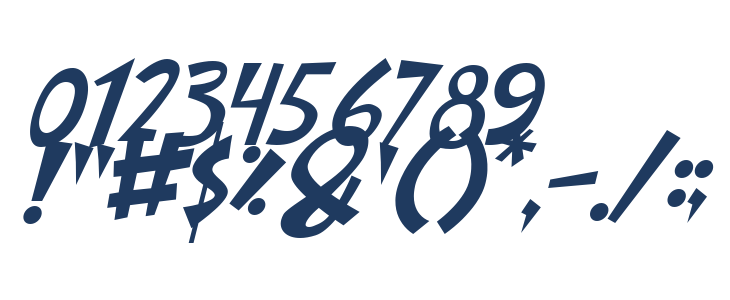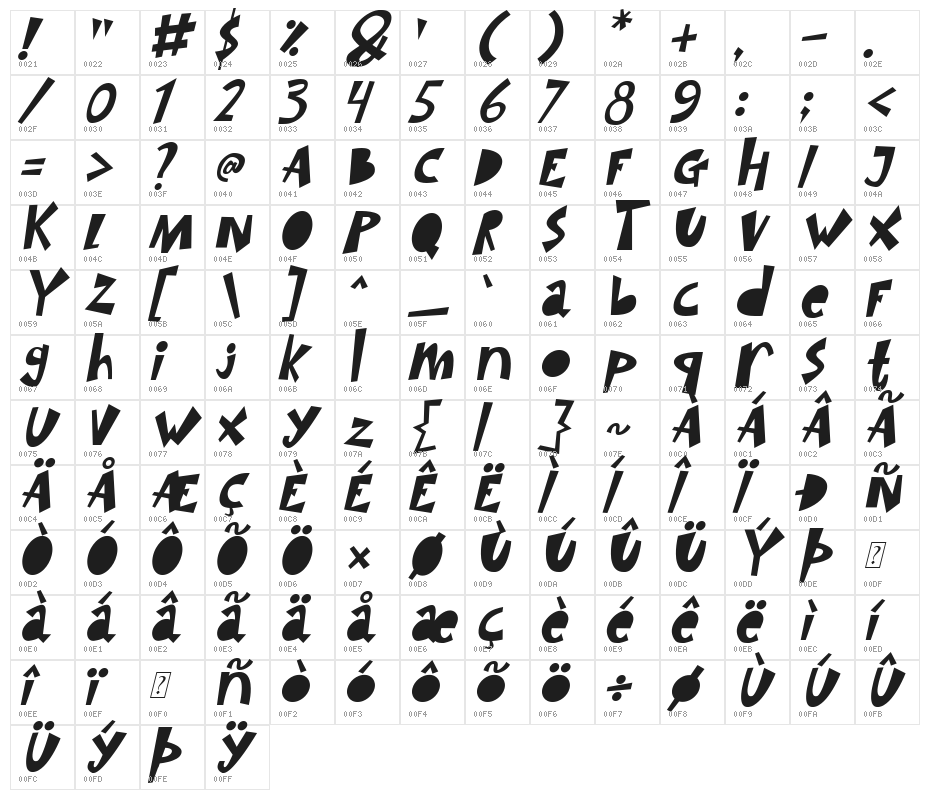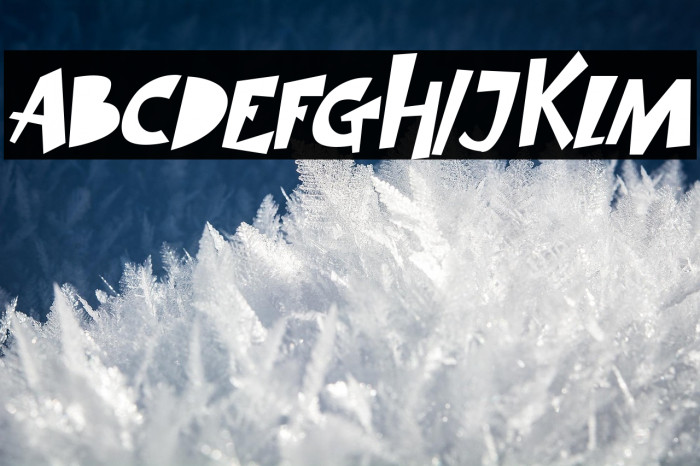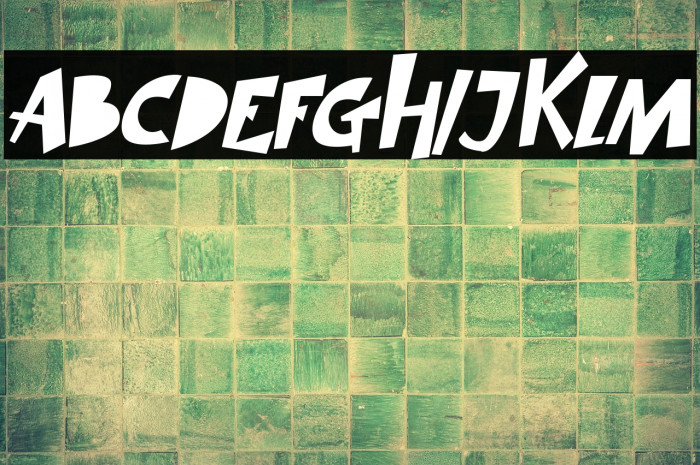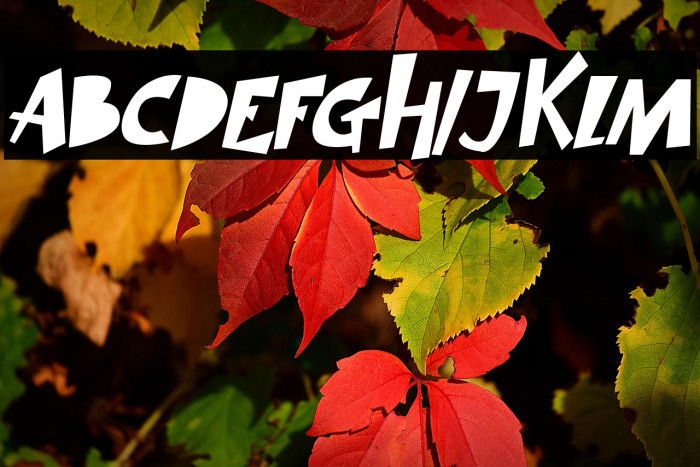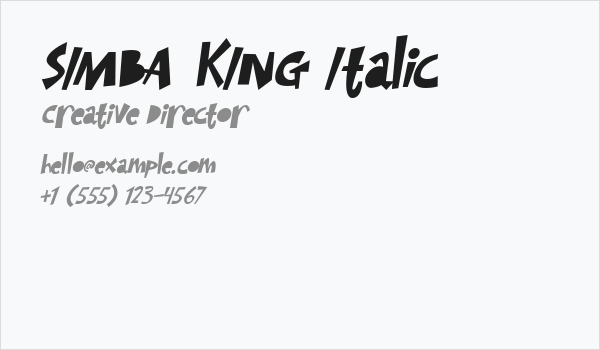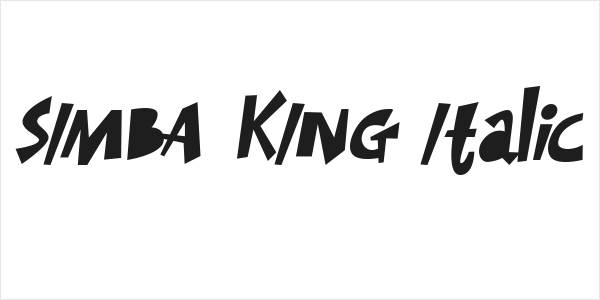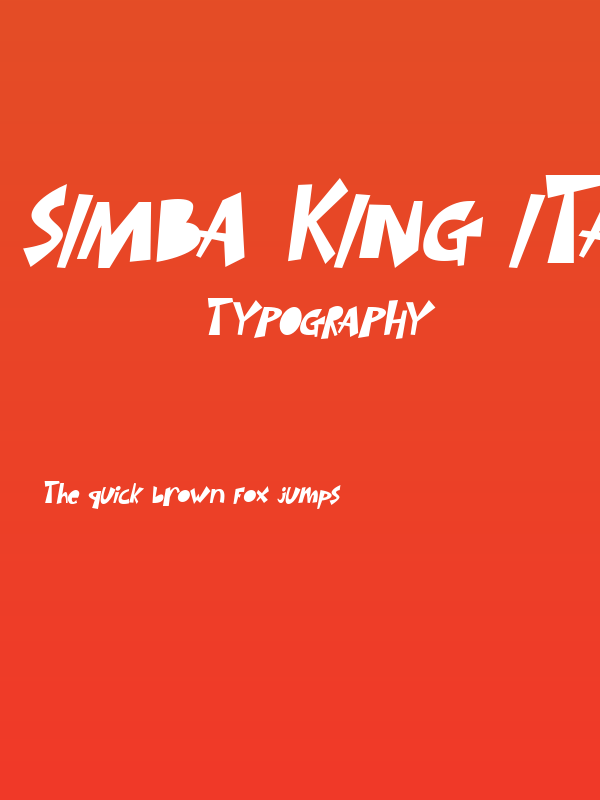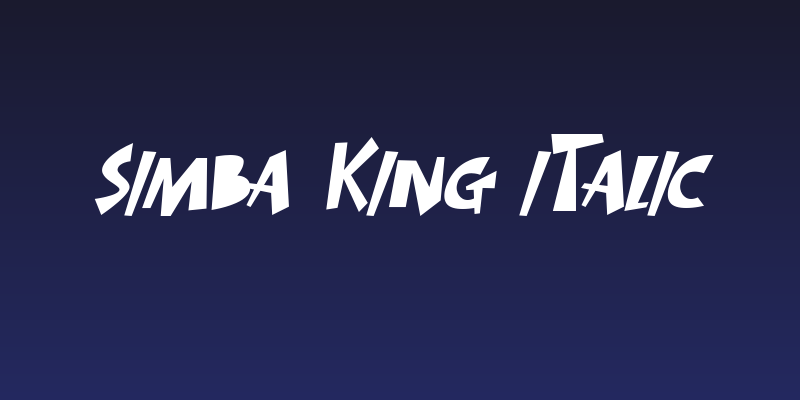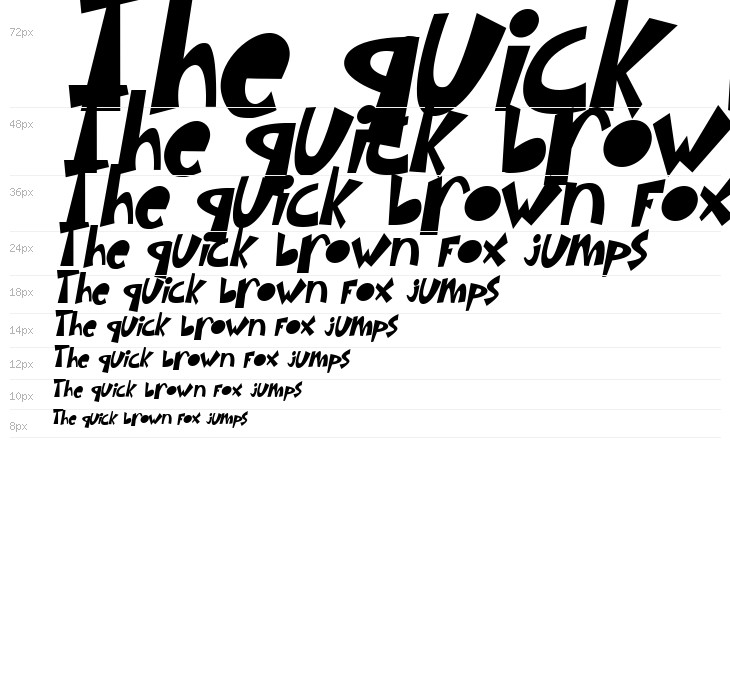
SIMBA KING Italic Font
SIMBA KING Italic Description
This font features a bold and dynamic style with a playful, energetic flair. The characters are italicized, giving a sense of movement and spontaneity. The uppercase letters are bold and angular, while the lowercase letters maintain a consistent flow with slightly rounded edges. The numbers are distinct and maintain the same lively style as the letters. Special characters are creatively designed, adding to the font's overall whimsical appearance. This font is perfect for projects that require a fun and engaging visual impact.
Overall StylePlayful, Energetic, Whimsical
Proposed ProjectsIdeal for children's book covers, playful branding, posters, and creative advertising.